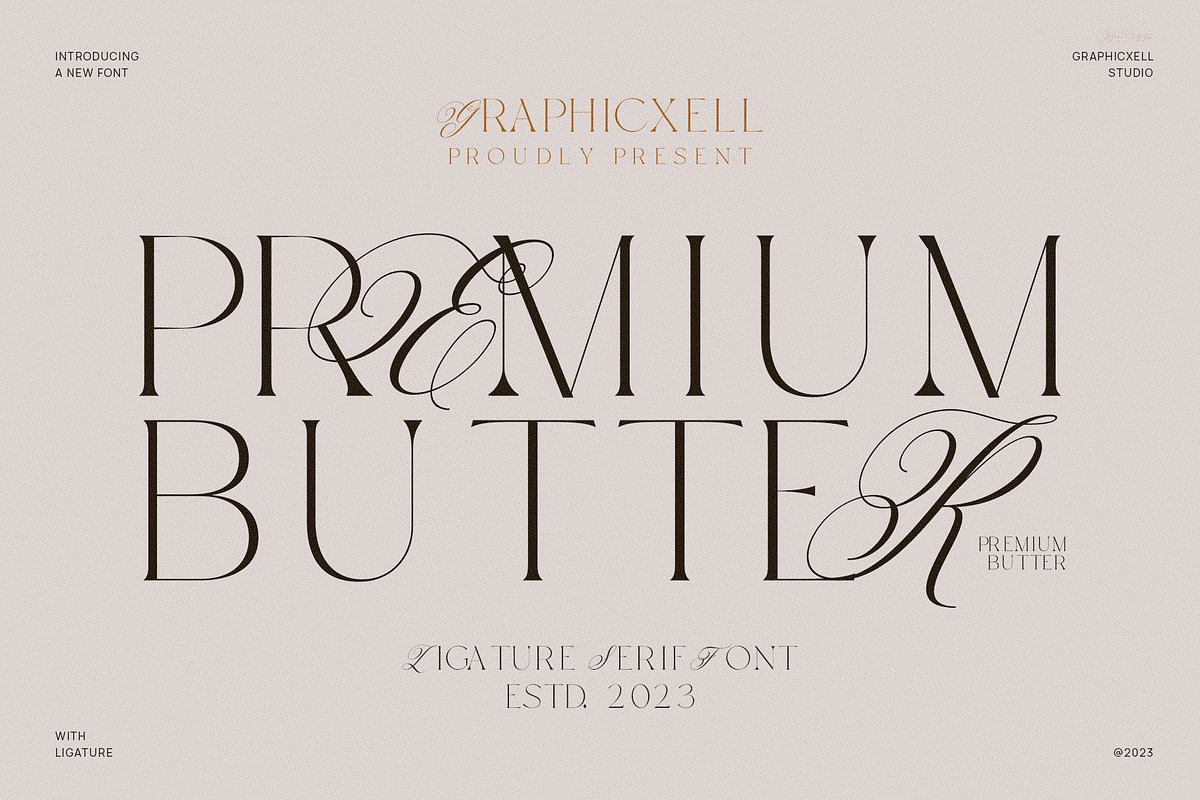
Premium Butter Elegant Serif Font Free Download
Premium Butter – Elegant Serif Font Free Download is a refined and luxurious typeface that combines timeless serif structure with a modern, graceful touch. Please note, you are required to purchase this font for commercial use. It is available for free download for testing and personal projects only.
With its high-contrast strokes, smooth curves, and delicate details, Premium Butter is perfect for fashion branding, upscale packaging, editorial layouts, wedding invitations, and social media graphics. It adds elegance and poise to any project while maintaining excellent readability and balance.